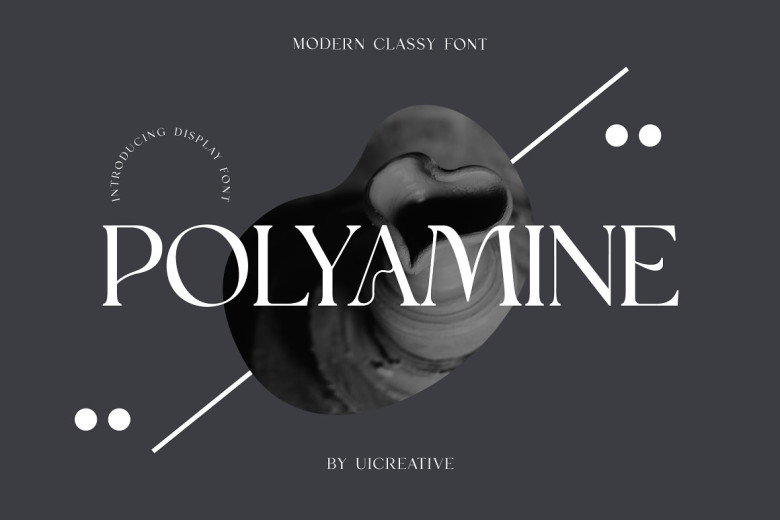
Polyamine Font
Polyamine Serif font is our brand new modern serif font that features an elegant feel. Perfect for magazine covers, book covers, website headers and clothing projects alike!
Polyamine Modern Classy Serif Font